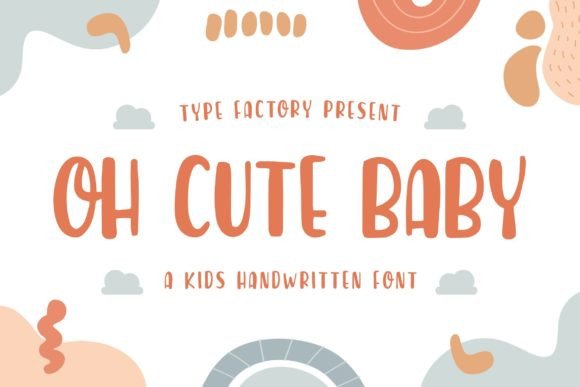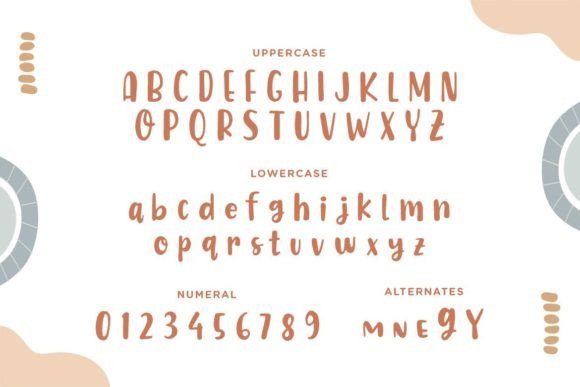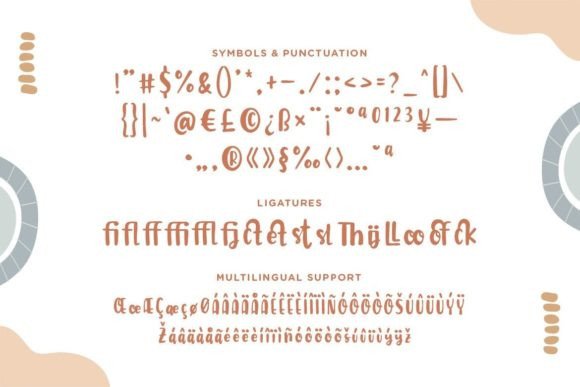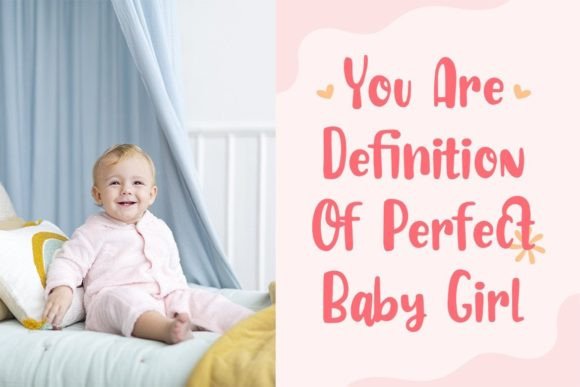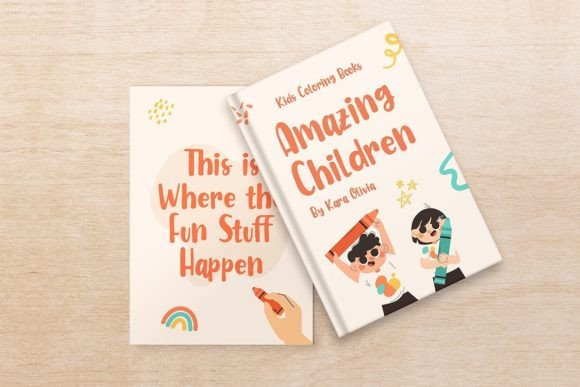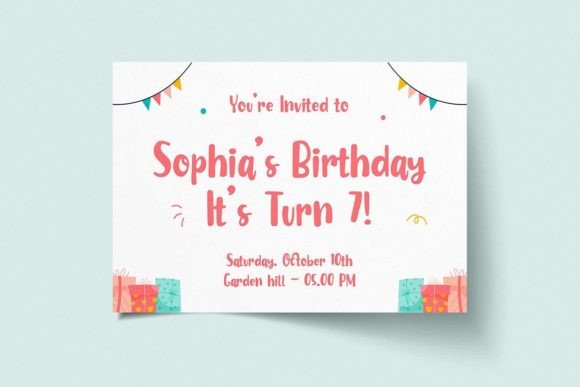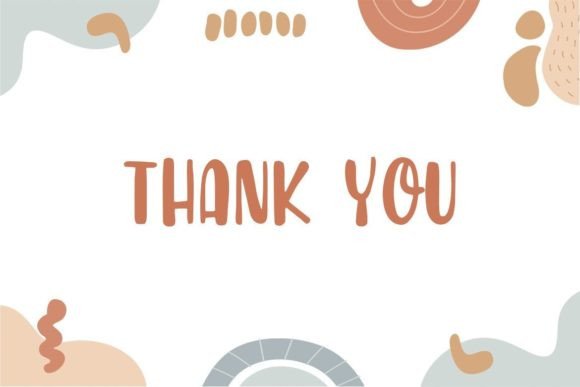
Oh Cute Baby Font
Oh Cute Baby is a kid’s handwritten font, carefully handcrafted to become a true favorite.
This font will look outstanding in kids-themed designs like coloring books, birthday invitations, playgrounds, kids’ show events, and many more!